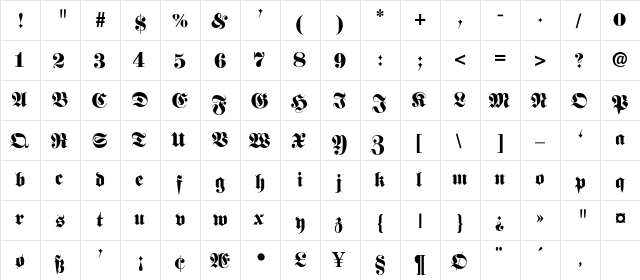
Lugosi-SemiBold Regular
Lugosi-SemiBold is a composed and adaptable typeface that performs quietly and consistently across a wide range of design contexts. Its bold stroke weight gives it real presence on the page.